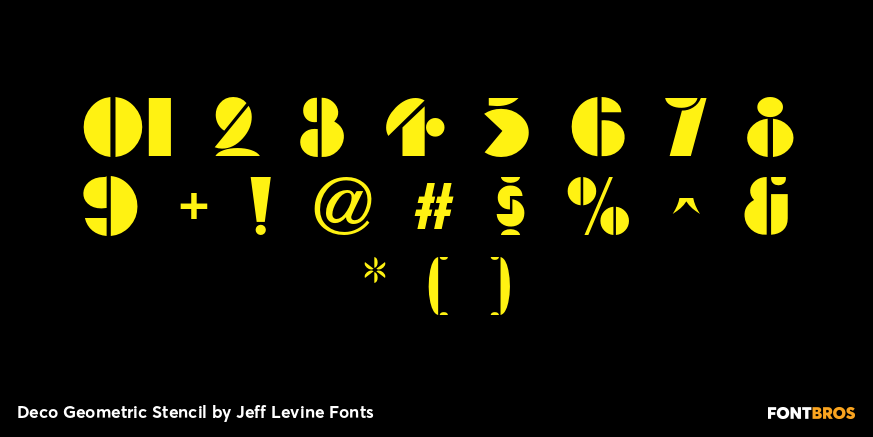
Deco Geometric Stencil
Deco Geometric Stencil JNL was inspired by an example of a vintage Art Deco stencil type design seen in the Steven Heller-Louise Fili book 'Stencil Type” (published by Thames and Hudson).